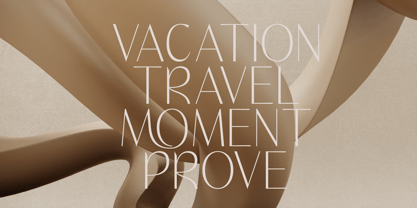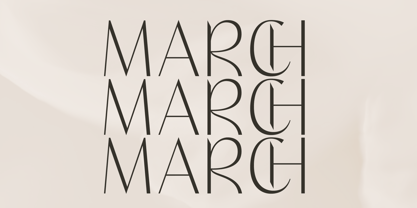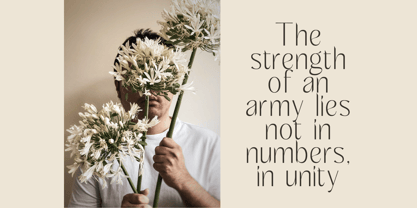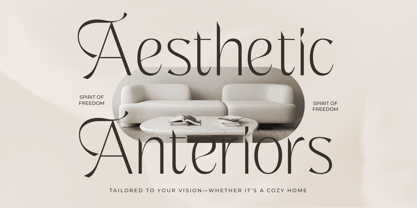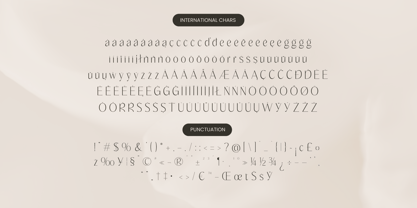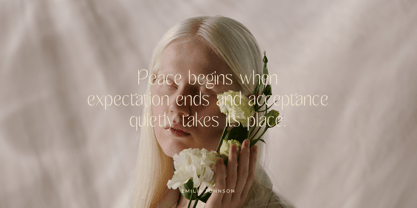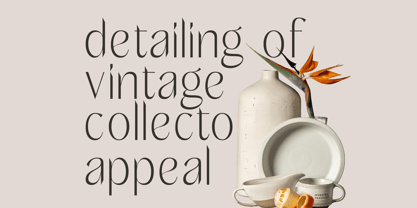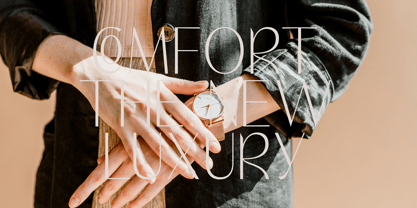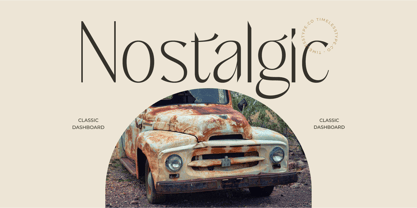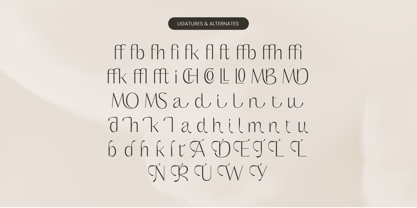
Kingray Quento
by Timelesstype Studio
The Kingray Quento Font Family was designed by Heru Utama Putra and published by Timelesstype Studio. Kingray Quento contains 2 styles and family package options. More about this family
Kingray Quento - Minimalist Sans Serif Font , from Timelesstype, Suitable for any projects such as: logos, branding projects, homeware designs, product packaging, mugs, quotes, posters, shopping bags, t-shirts, book covers, name card, invitation cards, greeting cards, label, photography, watermark, special events, and all your other luxury and beautiful projects that need a Luxury Serif taste.